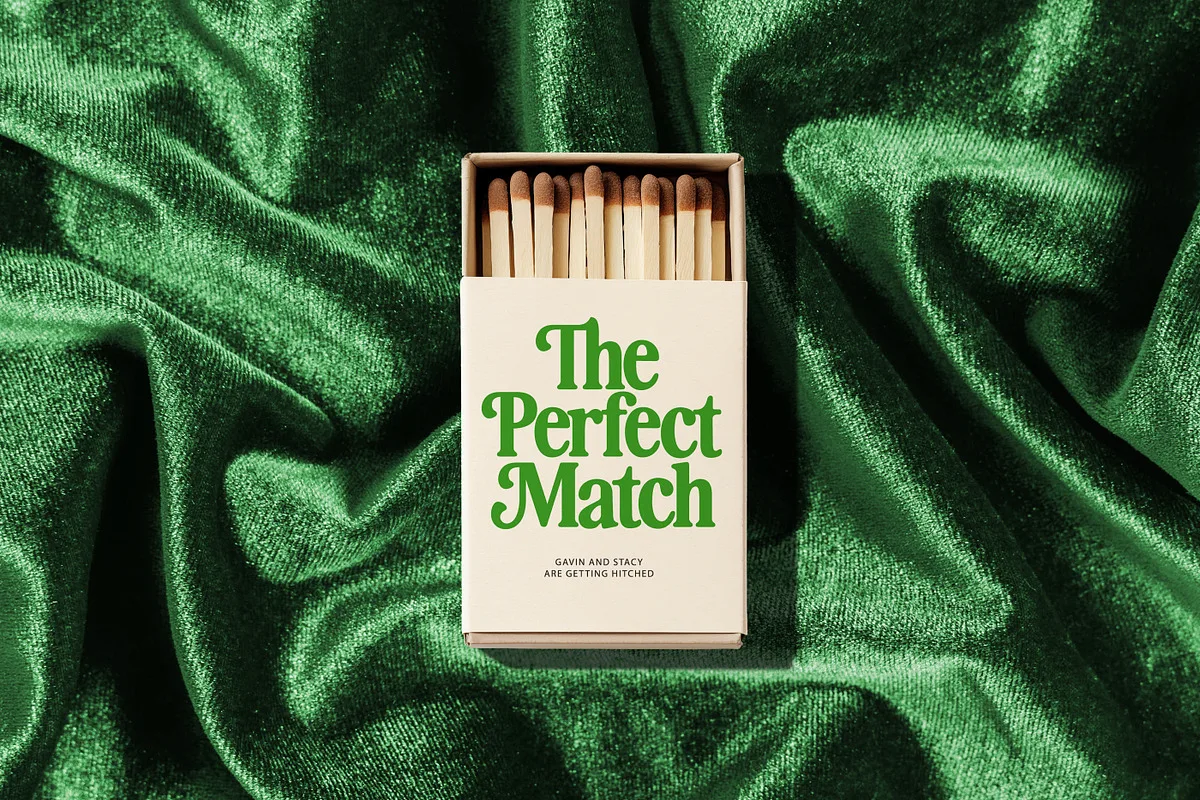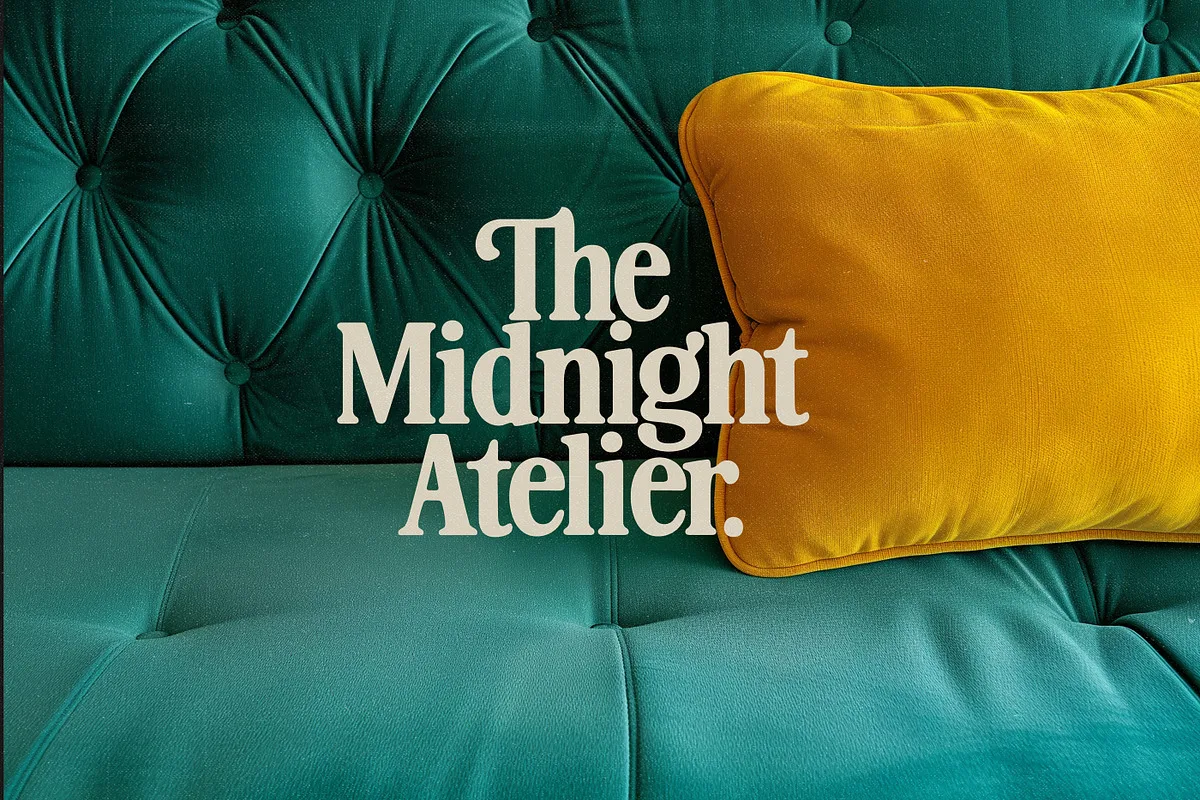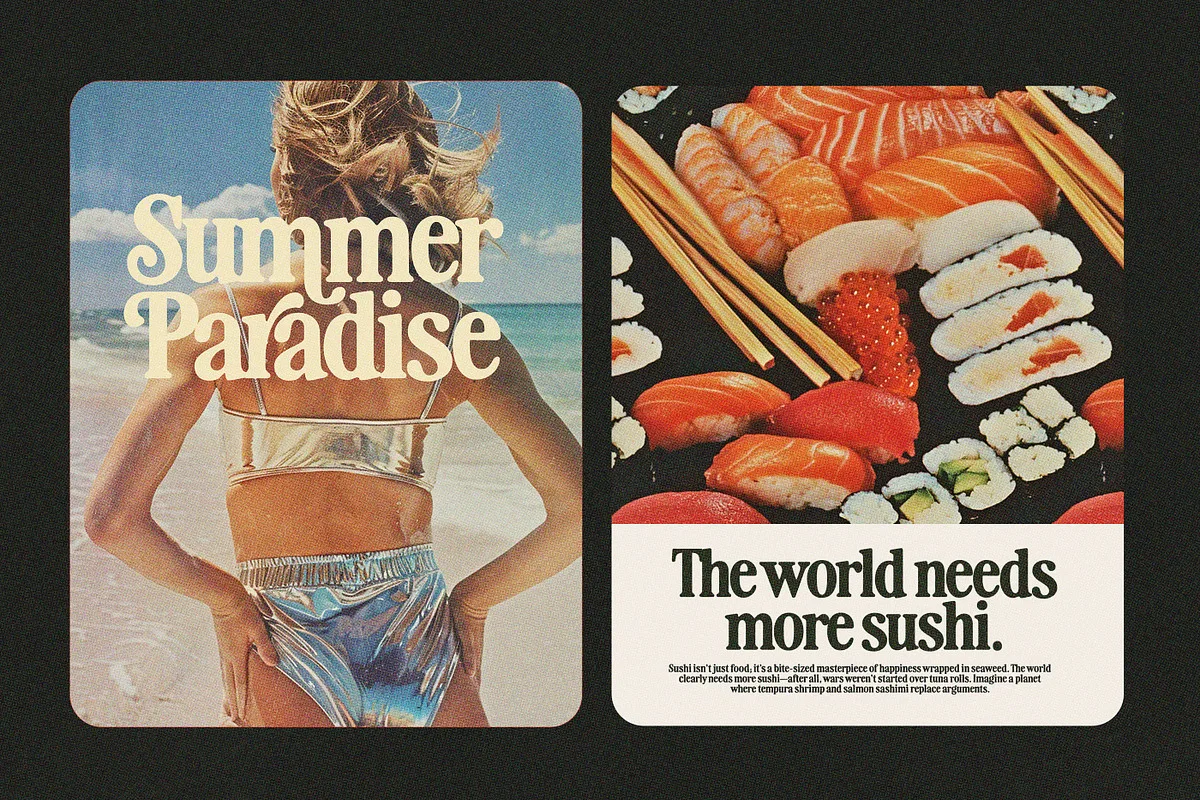
Heartbreak Eighties Font
Heartbreak Eighties is a retro serif font. With bold 80s vibes and silky soft edges, it’s designed to turn heads and woo all the retro lovers.
Don’t forget to experiment with your letter-spacing to add to your retro feels. For large display text – tighten that tracking…and for smaller body text, stretch it out a little.
Heartbreak Eighties font preview — sample text
Heartbreak Eighties font alphabet, numbers and glyphs
Heartbreak Eighties font style preview